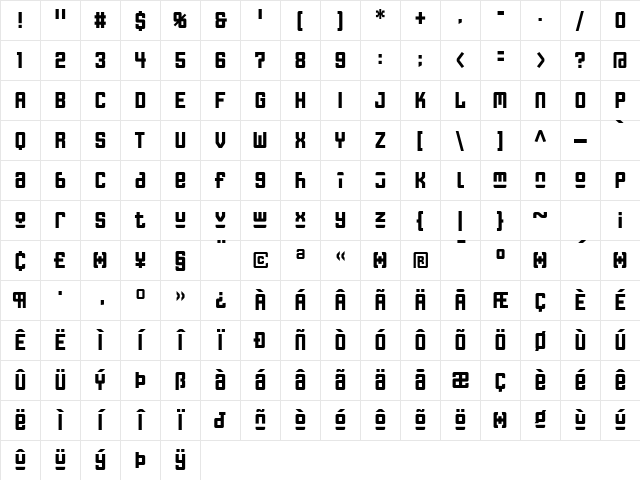
Gothic OneOne Condensed Regular Free Font
Gothic OneOne Condensed Regular
Design Context for Gothic OneOne Condensed
Gothic OneOne Condensed has a distinctly futuristic character, with geometric precision and clean angles that feel at home in technology, gaming, and sci-fi contexts. Its narrow stance lets it pack a punch even in space-constrained designs.